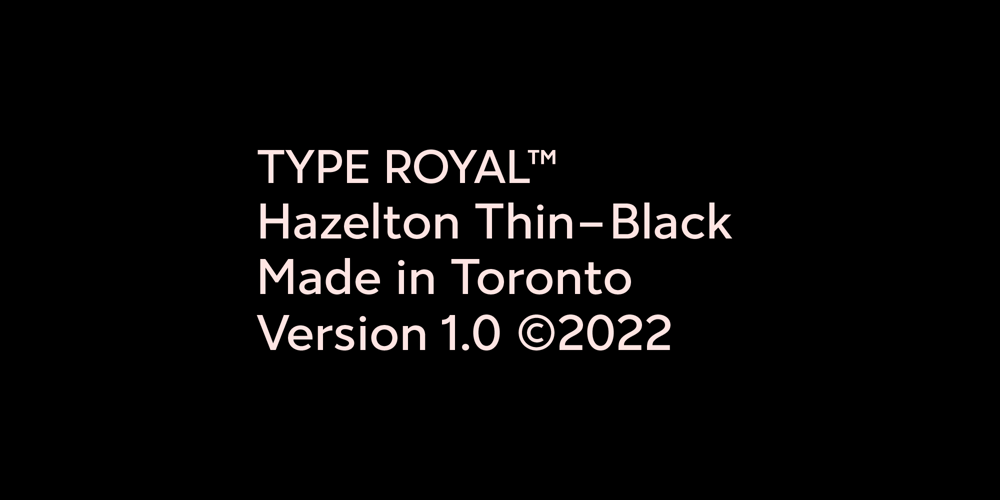
Hazelton Font Family was designed by Dylan Royal and published by Type Royal. Hazelton contains 6 styles and family package options. Hazelton is a neo-humanist typeface inspired by the explorations and development of early British sans-serif typography.Six weight have been developed for Hazelton. The lighter weights are loosely inspired by Edward Johnston’s Underground typeface. The heavier weights glean inspiration from Stephenson Blake’s Granby. Sharp, pointed terminals that are indicative of British typography have been omitted in favour of a more modern sensibility. Subtle humanist characteristics become more exaggerated as the typeface increases in weight, making the lighter weights practical for text purposes and the heavier weights ideal for display use. A unique set of numerals have been developed to infuse them with a humanist quality that is often lacking when typesetting technical data. The result is a diverse typeface that is as powerful as it is beautiful.